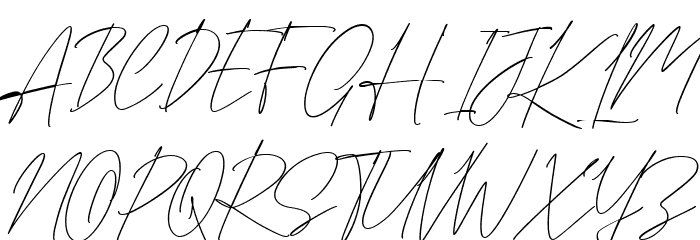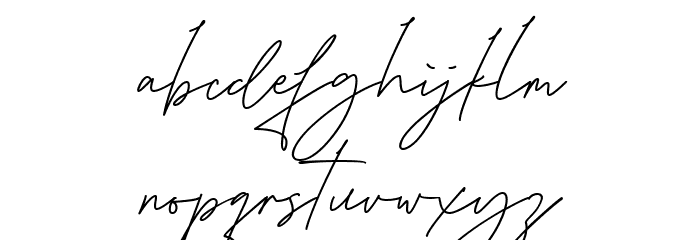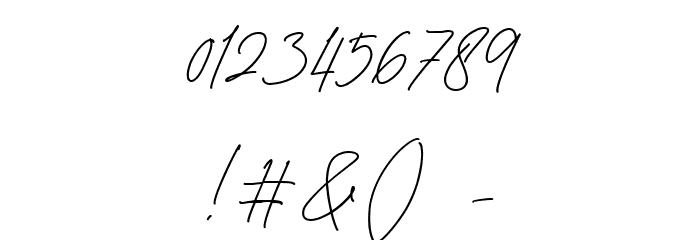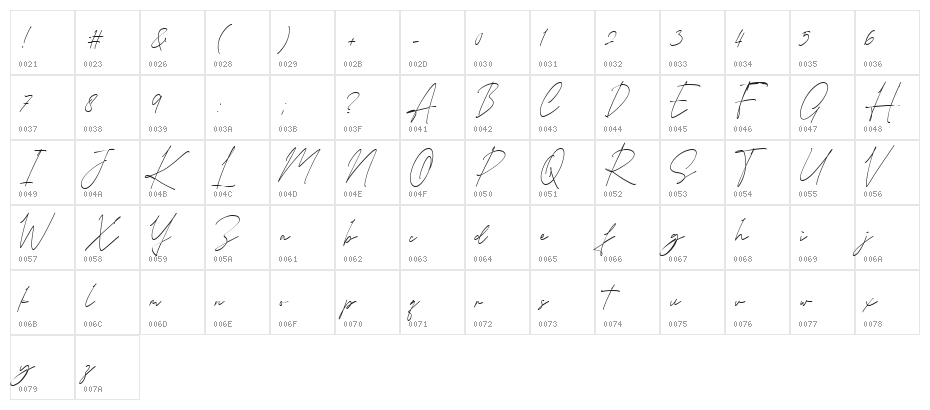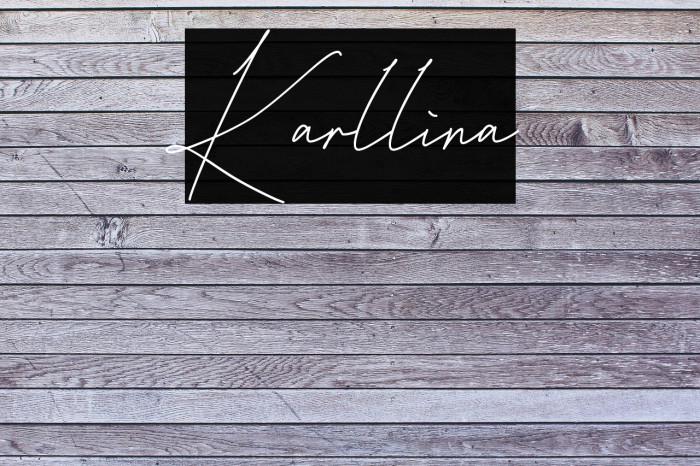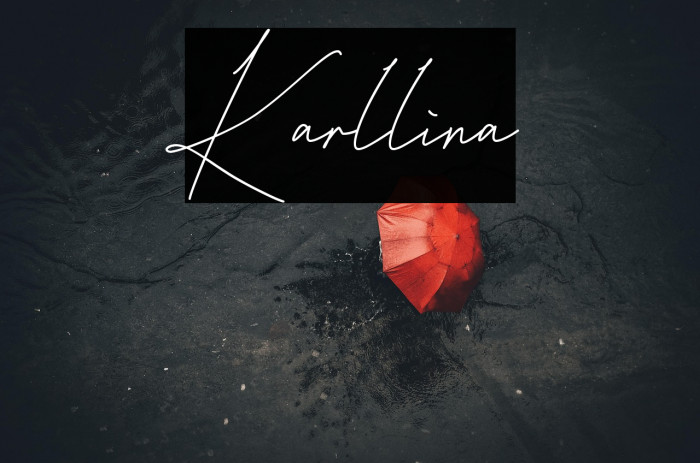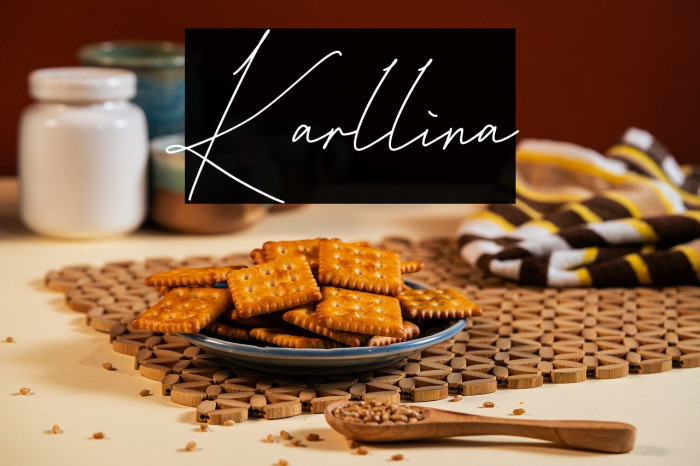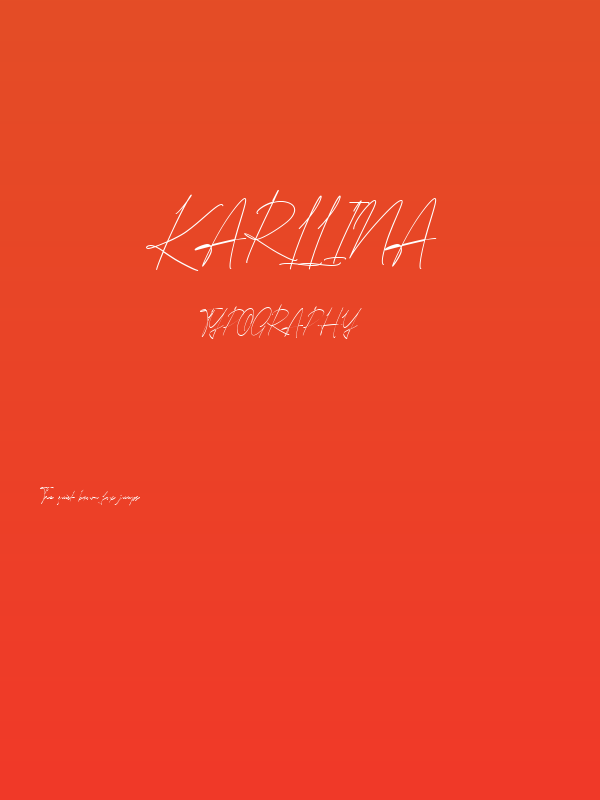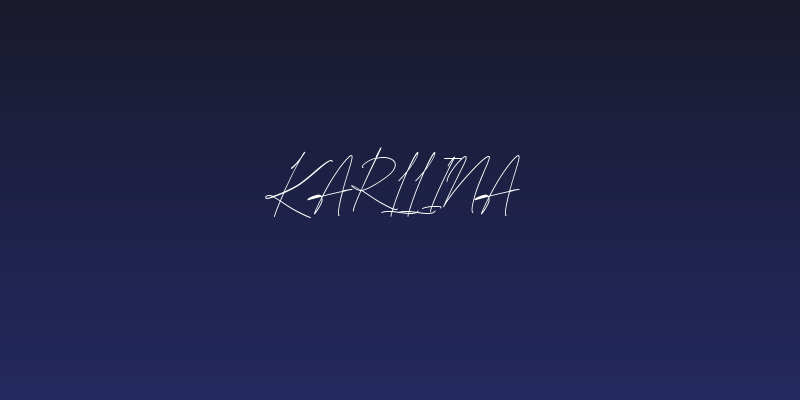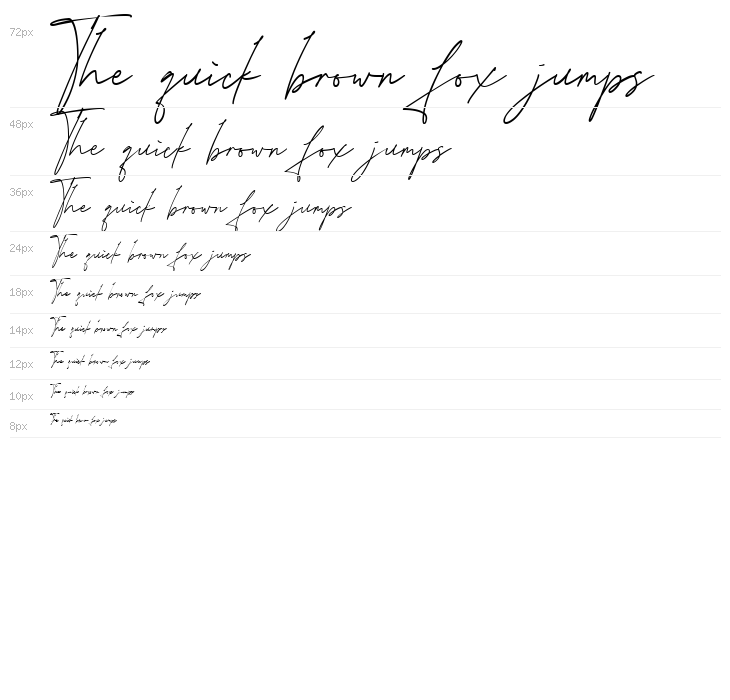
Karllina Font
This font exudes a sense of elegance and fluidity, characterized by its cursive, handwritten style. The letters are interconnected with smooth, flowing lines, creating a sense of movement and grace. The uppercase letters are tall and slender, while the lowercase letters maintain a consistent, delicate flow. The numerals and special characters are crafted with the same attention to detail, ensuring uniformity across the typeface. The overall appearance is sophisticated and artistic, making it suitable for projects that require a personal touch or a sense of refinement.
An elegant, cursive handwritten font with flowing lines and a sophisticated style.
- Font: Karllina
- Proposed Projects: Ideal for wedding invitations, personal branding, greeting cards, and elegant packaging designs.
- Category: Handwritten
- Overall Style: Elegant, Artistic
- Use Case: Logos, Invitations, Personal Branding